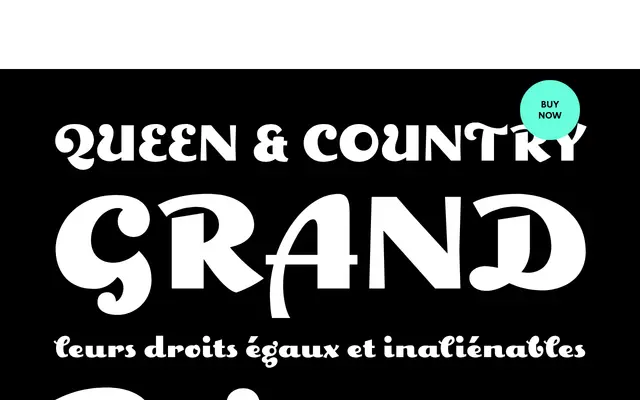
Geetype
A single-weight art deco display face rooted in Cassandre's 1920s cigarette pack lettering, with rounded, voluptuous curves suited to vintage poster work.
Drawn from a piece of lettering attributed to A.M. Cassandre, Geetype brings a hand-crafted, golden-era quality to display settings. Its buxom forms evoke the graphic sensibility of 1920s and 30s poster campaigns, with a free-flowing rhythm that works well at large sizes. Extended Latin coverage spans West European, Central and East European, and Baltic and Turkish character sets, with OpenType features including ligatures, fractions, ordinals and superiors.
A single-weight decorative display face with art deco characteristics: buxom, voluptuous curves and a hand-lettered poster quality inspired by Cassandre's cigarette pack lettering from the 1920s–30s.